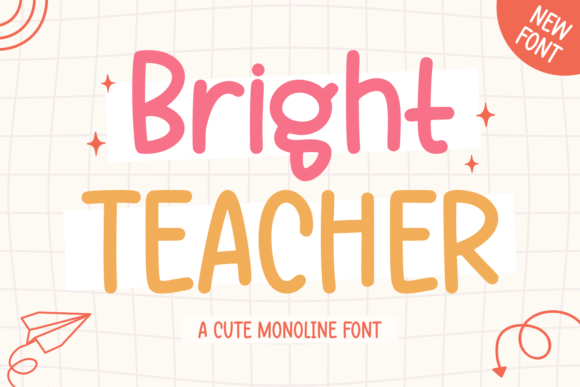
Bright Teacher Font: Adding a Spark of Fun to Your Designs
Are you looking for a font that can bring a sense of joy and playfulness to your designs? Look no further than Bright Teacher, a delightful monoline font that’s perfect for capturing the vibrancy of the back-to-school period. In this article, we’ll take a closer look at the features and benefits of Bright Teacher, and explore how you can use this charming font to add a cheerful undertone to your designs.
What is Bright Teacher Font?
Bright Teacher is a monoline font that’s designed to evoke a sense of fun and whimsy. Its charming aesthetic makes it perfect for a wide range of applications, from vibrant book covers to eye-catching posters, charming packaging, cool merchandise, and expressive logotypes. With its unique blend of playfulness and sophistication, Bright Teacher is sure to become your go-to choice for any design project that demands a cheerful undertone.
The Benefits of Using Bright Teacher in Your Designs
So why choose Bright Teacher for your design projects? Here are just a few benefits of using this delightful font:
- Versatility: Bright Teacher is suitable for a wide range of applications, from book covers to posters, packaging, merchandise, and logotypes. Its versatility makes it a great addition to any designer’s toolkit.
- Playfulness: Bright Teacher has a unique sense of playfulness that’s perfect for capturing the vibrancy of the back-to-school period. Its charming aesthetic is sure to bring a smile to your audience’s faces.
- Whimsy: With its monoline design, Bright Teacher has a whimsical feel that’s perfect for adding a touch of personality to your designs.
- Ease of use: Bright Teacher is easy to read and use, making it perfect for designs that require a clear and concise message.
Design Applications for Bright Teacher Font
So how can you use Bright Teacher in your designs? Here are just a few ideas to get you started:
- Book Covers: Bright Teacher is perfect for creating eye-catching book covers that will stand out on the shelves. Its playful aesthetic makes it ideal for children’s books, educational materials, and young adult fiction.
- Posters: Create eye-catching posters that will grab your audience’s attention with Bright Teacher. Its bold and playful design makes it perfect for advertising campaigns, promotional materials, and event posters.
- Packaging: Add a touch of personality to your packaging with Bright Teacher. Its whimsical design makes it perfect for product labels, packaging inserts, and branding materials.
- Merchandise: Create cool merchandise that will stand out from the crowd with Bright Teacher. Its playful aesthetic makes it perfect for t-shirts, stickers, and other promotional items.
- Logotypes: Use Bright Teacher to create expressive logotypes that will help your brand stand out. Its unique blend of playfulness and sophistication makes it perfect for businesses that want to add a touch of personality to their branding.
Tips and Tricks for Using Bright Teacher Font
Here are a few tips and tricks to help you get the most out of Bright Teacher:
- Experiment with colors: Bright Teacher looks great in a variety of colors, so don’t be afraid to experiment and find the perfect hue for your design.
- Mix and match: Try pairing Bright Teacher with other fonts to create a unique and eye-catching design.
- Play with size: Bright Teacher looks great in a variety of sizes, so don’t be afraid to experiment with different font sizes to create visual interest.
- Add texture: Consider adding texture to your design to give it a more tactile feel. Bright Teacher looks great with subtle textures and patterns.
In conclusion, Bright Teacher is a delightful monoline font that’s perfect for adding a touch of fun and whimsy to your designs. Its charming aesthetic makes it suitable for a wide range of applications, from book covers to posters, packaging, merchandise, and logotypes. With its versatility, playfulness, and ease of use, Bright Teacher is sure to become your go-to choice for any design project that demands a cheerful undertone. So why wait? Add an inviting spark to your designs with Bright Teacher today!